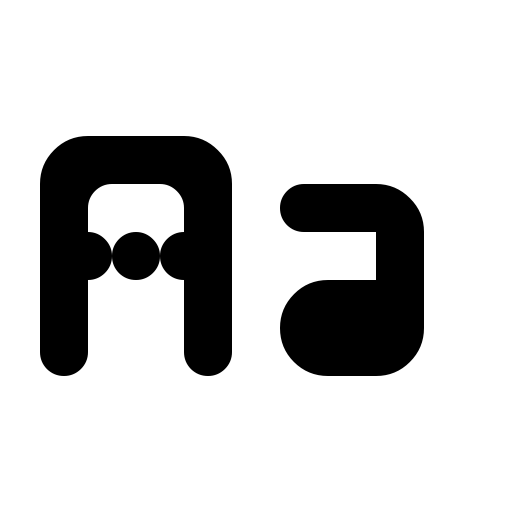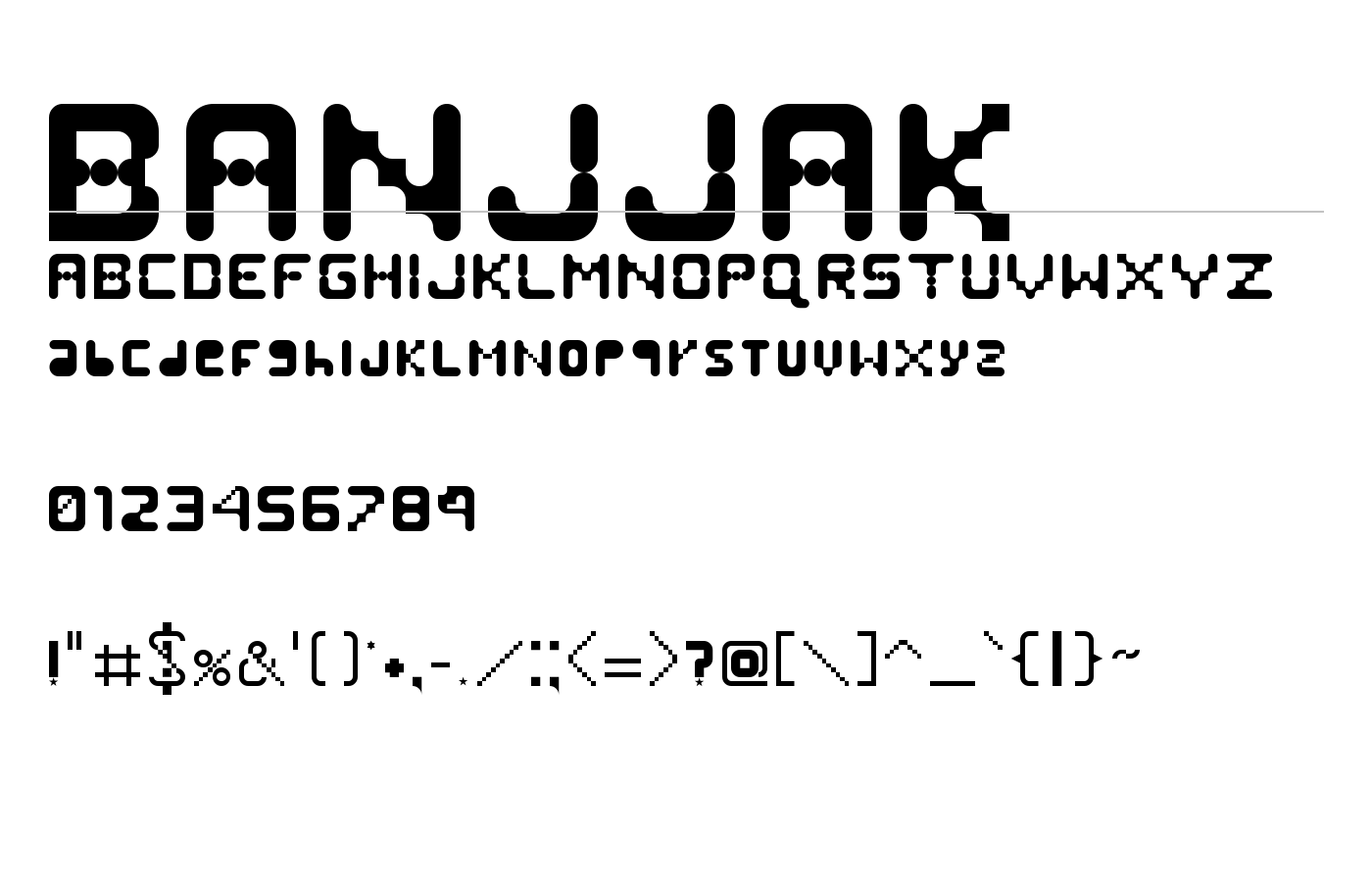
BANJJAK is a bold, futuristic sans serif font with a unique pixelated edge and rounded corners that give it a modern, digital feel. Its compact letterforms and high x-height make it eye-catching and ideal for tech-themed branding, video game design, or creative headlines. This font stands out with its playful yet technical personality, perfect for projects seeking a blend of innovation and style.
BANJJAK Font
About BANJJAK Font